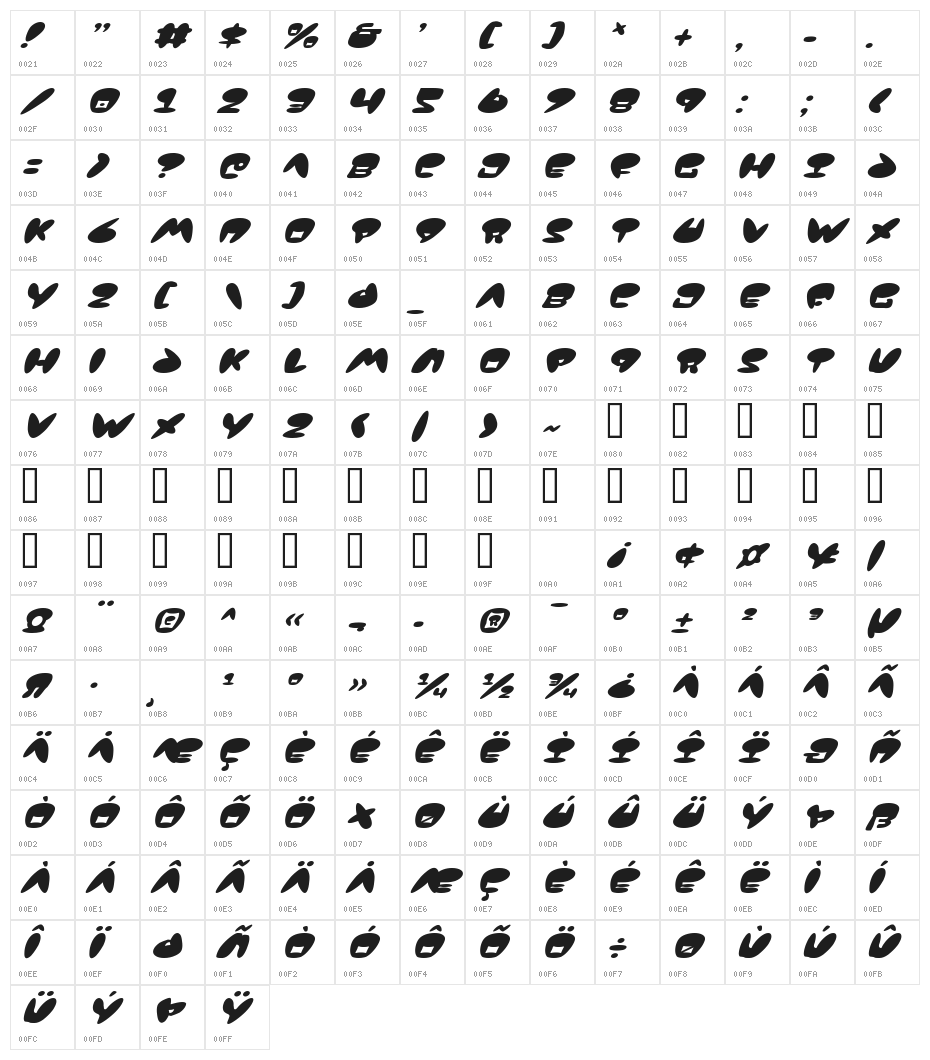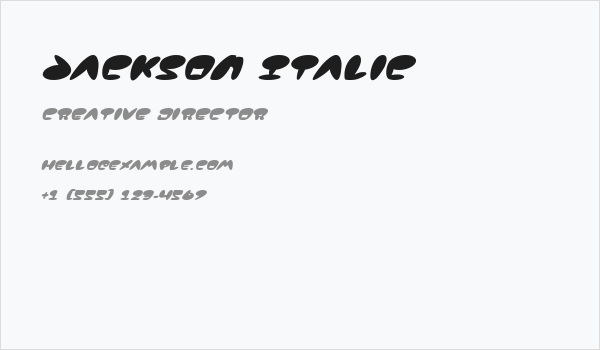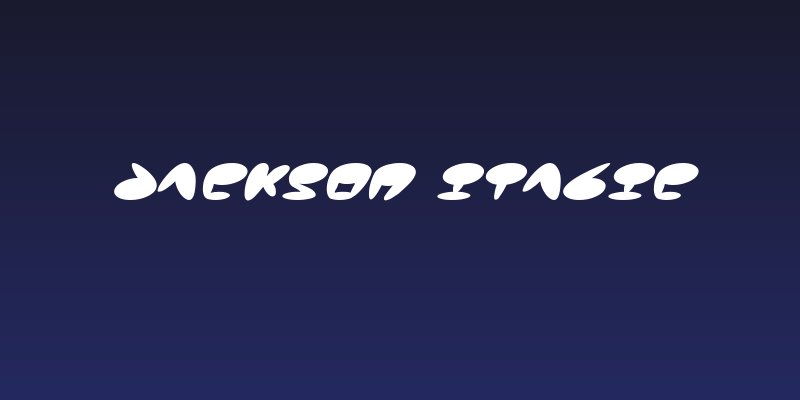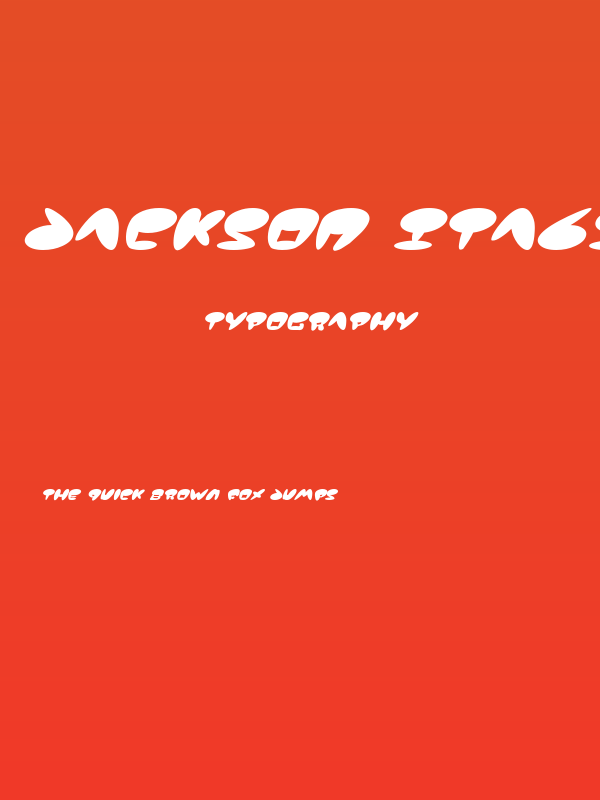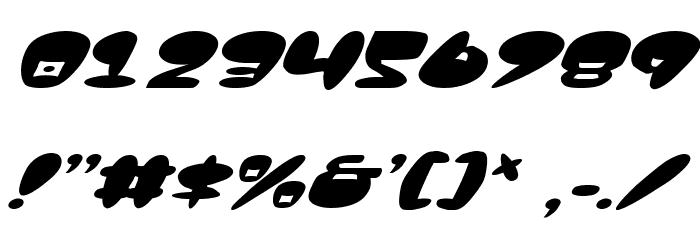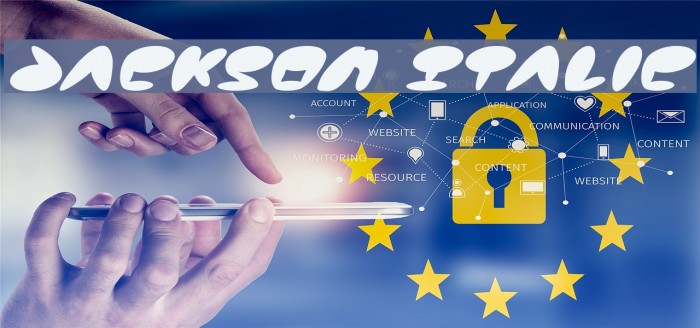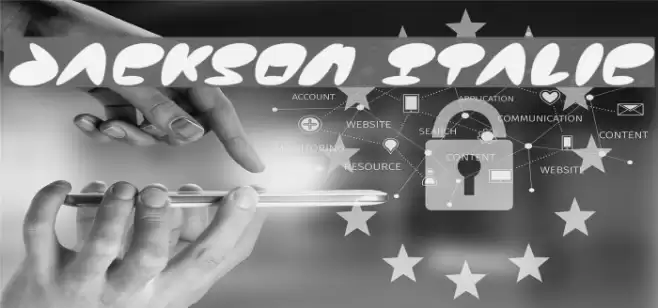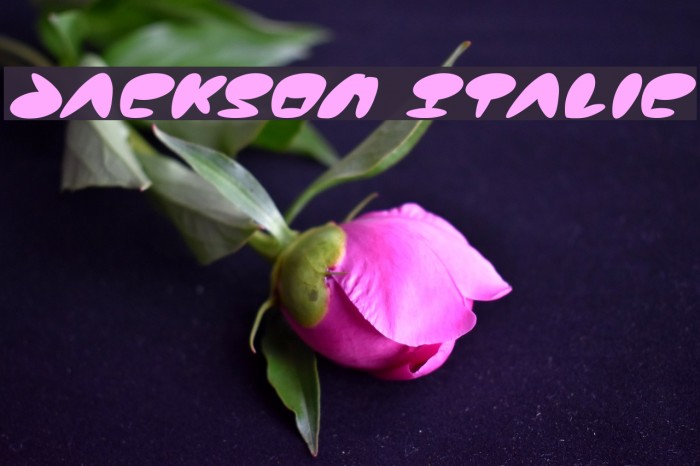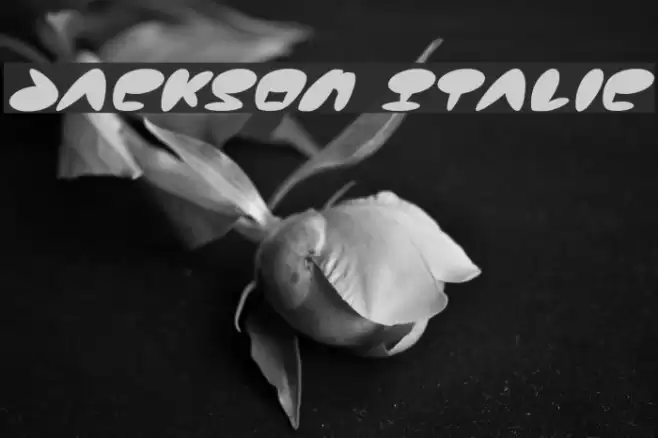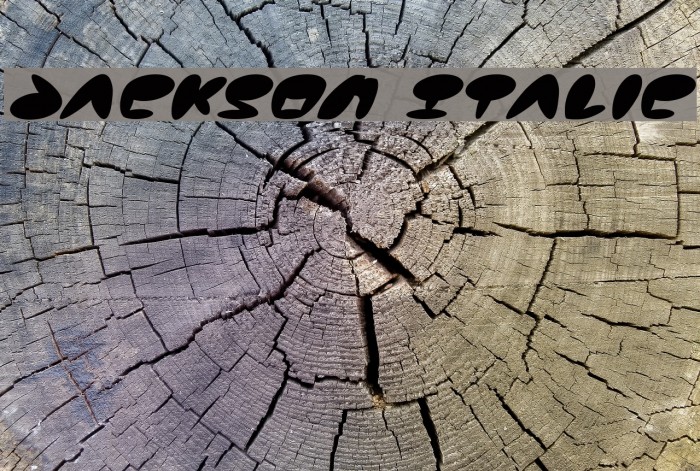
Jackson Italic Font
Jackson Italic Description
This font features a bold and dynamic style with a strong italic slant, giving it a sense of motion and energy. The characters are thick and rounded, with a playful and slightly futuristic appearance. The uppercase and lowercase letters maintain a consistent style, with smooth curves and a uniform thickness throughout. The numbers are equally bold and rounded, fitting seamlessly with the overall design. Special characters are creatively integrated, maintaining the font's unique aesthetic. This font's boldness and distinctive style make it stand out, ideal for eye-catching designs.
| Proposed Projects | Ideal for branding, poster design, album covers, and any project requiring a bold, energetic typeface. |